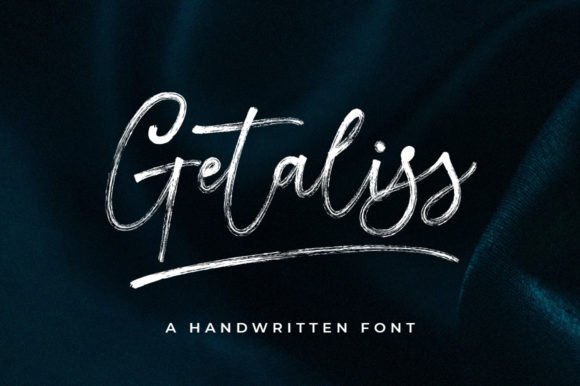
Getaliss Font: The Mesmerizing Melody for Your Visual Symphony
In the realm of visual communication, fonts hold the power to orchestrate emotions, convey messages, and create an enchanting symphony of design. Amidst the vast array of font families, Getaliss Font emerges as a captivating script, poised to transform your creative projects into masterpieces.
Crafted with meticulous attention to detail by the renowned gatype foundry, Getaliss Font is a virtuoso performance in typography. Its sinuous curves and elegant lines dance across the screen, evoking a sense of fluidity and grace. Whether you're composing a heartfelt invitation, designing a captivating brand identity, or crafting a visually stunning website, Getaliss Font will elevate your work to new heights.
Immerse yourself in the world of music with Getaliss Font, a symphony specially composed for musical endeavors. Whether you're designing concert posters, creating album covers, or composing sheet music, Getaliss Font will bring your musical vision to life. Let the notes flow effortlessly from your fingertips as you weave your musical tapestry, knowing that Getaliss Font will faithfully capture the essence of your melodies.
Beyond the realm of music, Getaliss Font's versatility extends to a myriad of creative expressions. Its charming personality adds a touch of whimsy to invitations, imbues a sense of elegance to branding designs, and brings a touch of sophistication to website layouts. Whether you're creating marketing materials, designing social media graphics, or crafting captivating advertisements, Getaliss Font will elevate your message and leave a lasting impression.